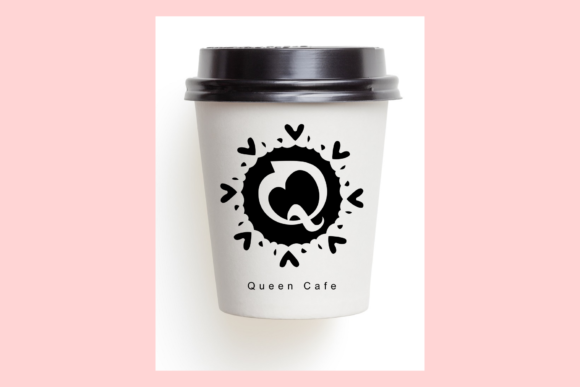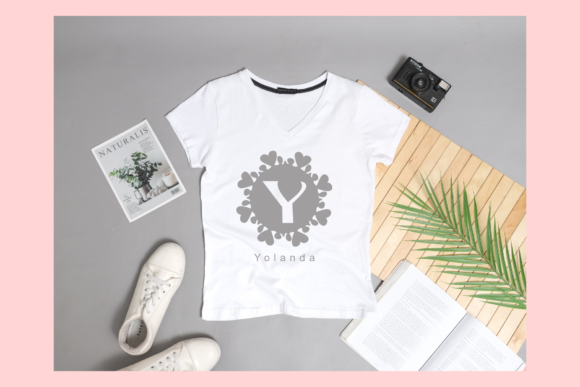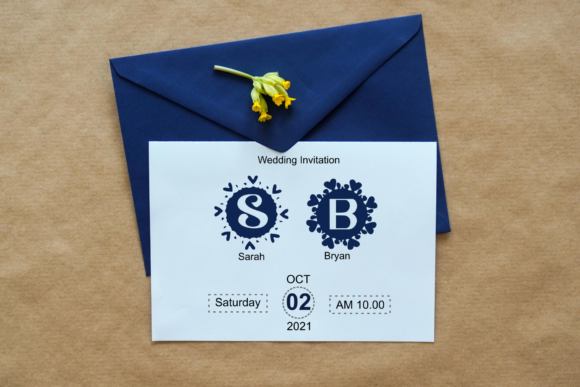
Introduction to Monogram Coved Font
As I sat down to write a heartfelt letter to my loved one, I found myself searching for the perfect font to convey the emotions and feelings I wanted to express. It was then that I stumbled upon the Monogram Coved Font – a highly detailed and beautiful decorative font that added a touch of elegance to my words. Its intricate design and high-quality aesthetic made it the perfect choice for a romantic gesture, and I couldn’t help but wonder what other creative projects it could bring to life.
For designers, having access to a versatile and high-quality design resource like the Monogram Coved Font can be a game-changer. With its transparent background and ability to be used for free downloads, it’s the perfect addition to any design project. Whether you’re working on a wedding invitation, a love letter, or a creative project, this font is sure to elevate your design and leave a lasting impression.
Key Features of Monogram Coved Font
- Unique Coved Design: The Monogram Coved Font features a distinctive coved shape, making it ideal for creative projects that require a touch of elegance and sophistication.
- High-Quality Design: This font is designed with precision and attention to detail, resulting in a high-quality design that is perfect for any project.
- Perfect for Creative Projects: The Monogram Coved Font is ideal for creative projects, including wedding invitations, branding materials, and other design elements that require a unique and sophisticated look.
Honest Review: Monogram Coved Font
I recently stumbled upon the Monogram Coved Font, and I must say it’s a great addition to my design resource library. The font is perfect for those creative projects that need a touch of elegance and sophistication.
What works well: ✨ The font is highly customizable, with a range of styles and sizes available for download. The transparent background makes it easy to use on various design elements, from logos to headings. The high-quality design ensures that the font looks crisp and clear on both digital and print materials.
Here are some of the features that I love about the Monogram Coved Font:
- High-quality design that looks great on both digital and print materials
However, I do have a few limitations to mention: ⚠️ The font may not be suitable for all design projects, particularly those that require a bold or playful tone. Additionally, the font may require some tweaking to achieve the desired look, especially when used with complex design elements.
Overall, I’m impressed with the Monogram Coved Font, and I would highly recommend it to designers looking for a high-quality, elegant font for their creative projects.